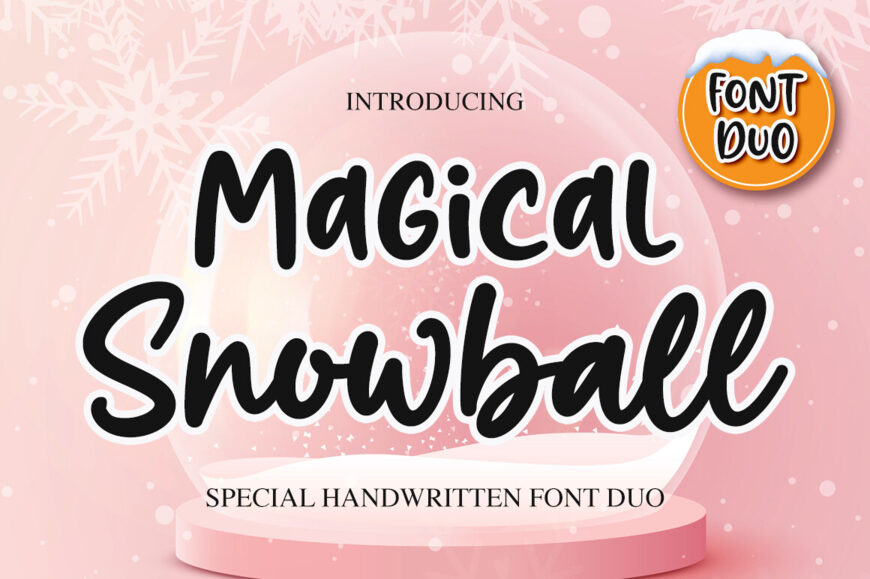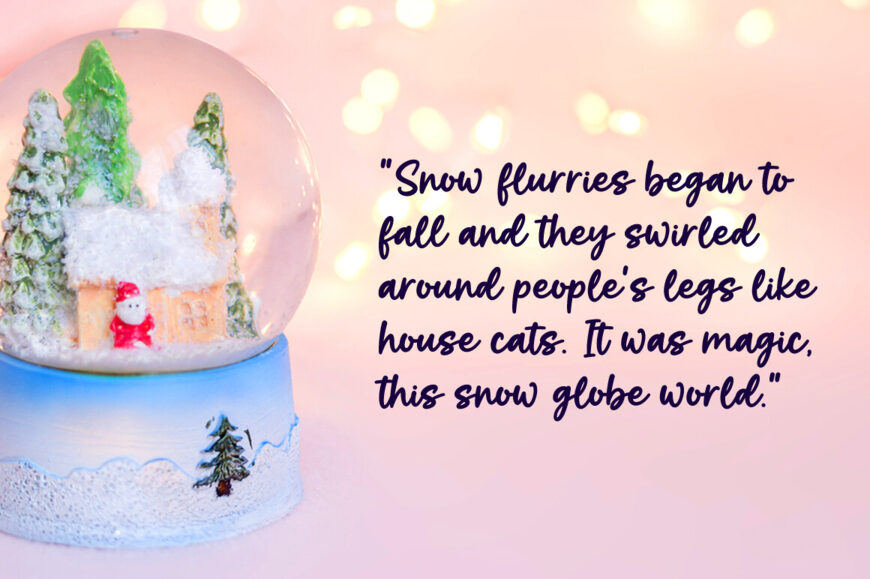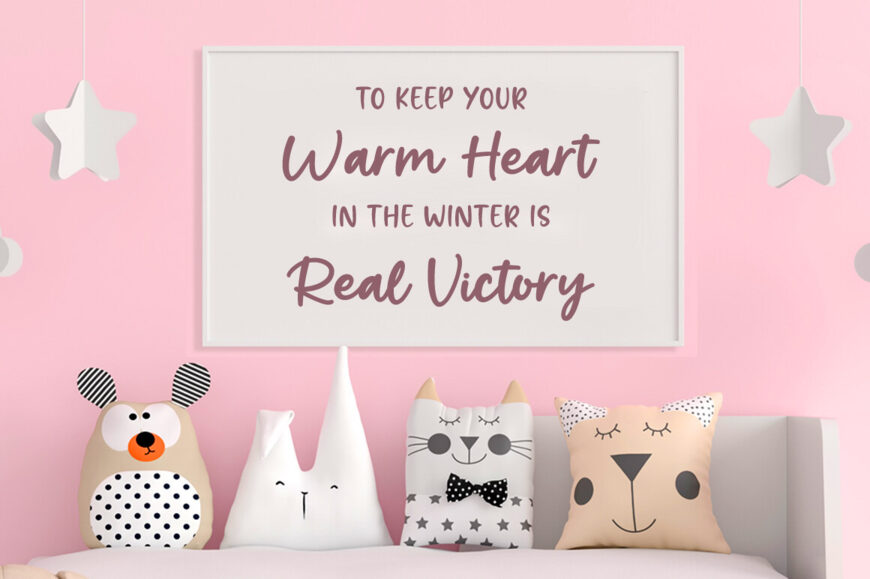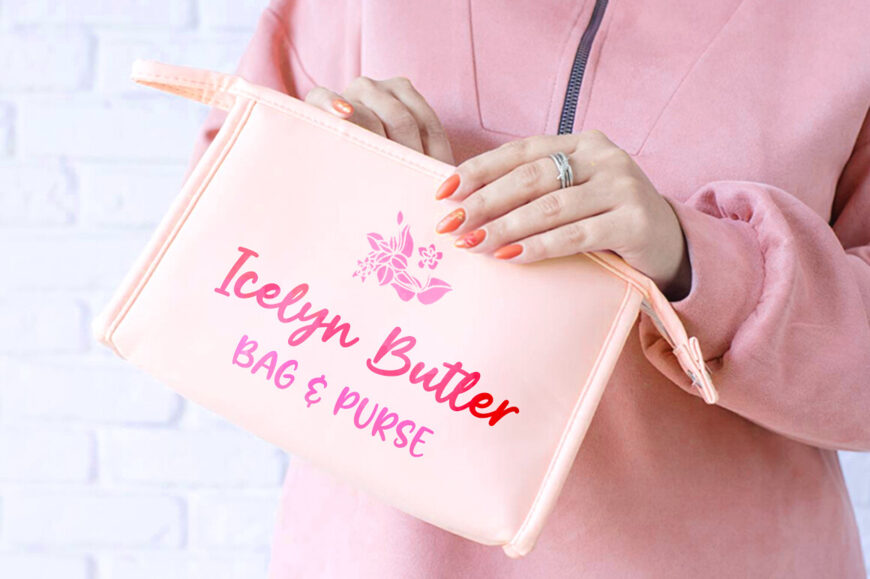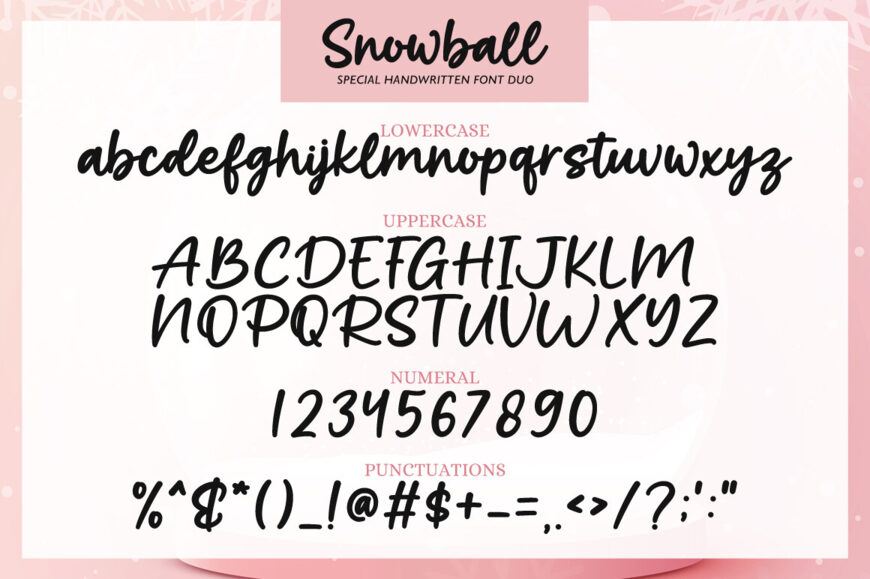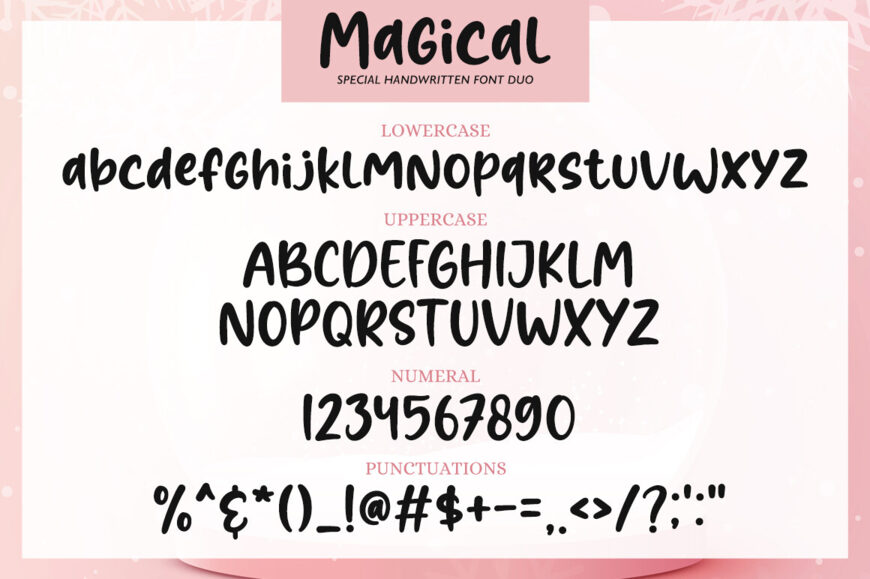
Magical Snowball consists of two handwritten fonts (sans and script) designed to complement each other perfectly. Together or apart, these fonts are ideal for adding a chic and cheery touch to your crafts.